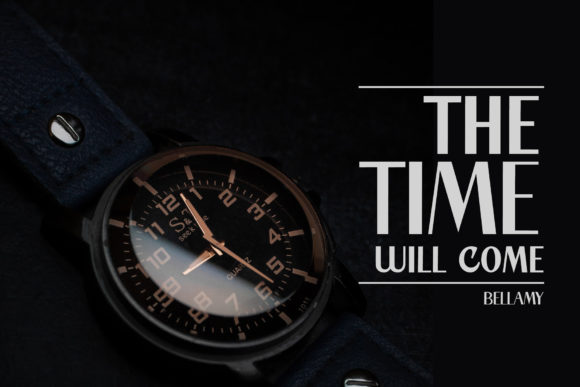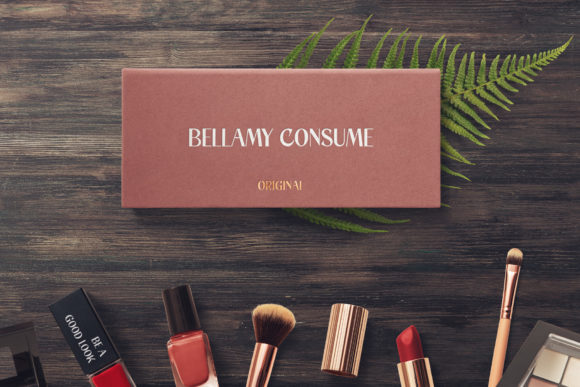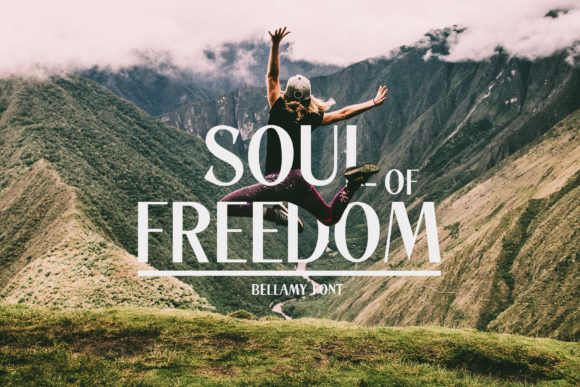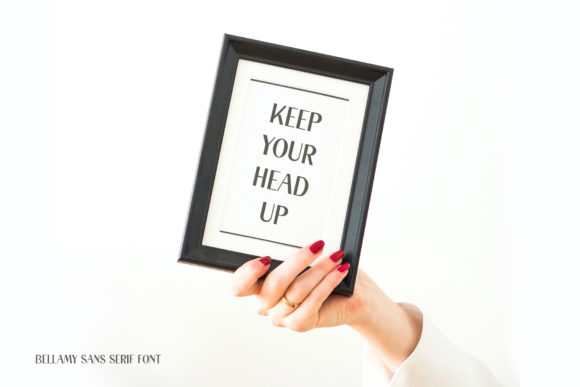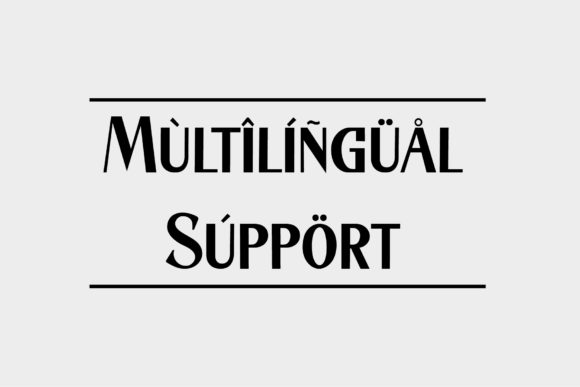
The Perfect Match for Your Next Design Project
Have you ever stared at a blank canvas, waiting for inspiration to strike? For many designers, this is a familiar feeling. You want a font that will bring your vision to life, something that exudes modernity and versatility. That’s where the Bellamy Font comes in – a bold and thick lettered sans serif font that’s about to become your new best friend.
Whether you’re working on a formal project or something a bit more casual, the Bellamy Font is the perfect match. Its modern aesthetic makes it incredibly versatile, allowing you to experiment with a wide range of designs. With the Bellamy Font, you’ll be able to convey confidence and sophistication in your work, making it a valuable addition to any designer’s toolkit.
Bellamy Font Key Features
- Font Size: Bellamy Font is available in 3 different font sizes: Regular (400), Medium (500), and Bold (700).
- Unique Characteristics: Bellamy Font features a unique blend of modern and vintage elements, making it perfect for various design applications.
- Font Style: Bellamy Font is a sans-serif font with a clean and elegant design, suitable for both body text and headings.
Bellamy Font Review
I recently had the chance to work with the Bellamy font, and I must say it’s a solid addition to any design library. ✨ Here are some of the things that work well:
- Unique character set: Bellamy boasts a distinctive character set that’s both elegant and quirky, making it perfect for creative projects.
- High legibility: The font is highly legible, even at smaller sizes, making it a great choice for body text or headlines.
- Good for digital use: Bellamy is designed specifically for digital use, so it looks great on screens and works well with various screen resolutions.
However, there are some limitations to keep in mind: ⚠️
- Limited language support: While Bellamy is great for English text, it may not be the best choice for languages that require more complex typography.
- Not ideal for small text: While the font is highly legible, it may not be the best choice for very small text sizes, where it can start to lose its charm.
- Not a good choice for formal documents: Bellamy’s unique character set may not be suitable for formal documents or corporate materials, where a more traditional font may be preferred.
Overall, I think Bellamy is a great addition to any design library, but it’s not a one-size-fits-all solution. With its unique character set and high legibility, it’s perfect for creative projects, but may not be the best choice for more formal or technical documents.
Getting the Most Out of Bellamy Font
For optimal results, use Bellamy Font in combination with a clean and minimalist design aesthetic. Experiment with different font sizes, colors, and styles to find the perfect balance for your project. Consider pairing Bellamy with other sans-serif fonts for a modern look.
Bellamy Font is ideal for use in modern branding, logos, and digital products. Its clean and sophisticated design makes it perfect for use in business presentations, marketing materials, and website typography.
Alternatives to Bellamy Font
Oswald is a sans-serif font designed by Vernon Adams. It’s a great alternative to Bellamy Font for headings and titles, as it has a similar geometric feel. Oswald is more condensed and has a slightly more modern look, making it perfect for contemporary designs. When to use: Headings, titles, and short paragraphs.
Comparison: Oswald is more condensed and has a more geometric feel, while Bellamy Font is more rounded and has a humanist touch. Oswald is also more versatile and can be used for a wider range of text sizes.
Lato is a sans-serif font designed by Łukasz Dziedzic. It’s a great alternative to Bellamy Font for body text, as it has a similar clean and modern feel. Lato is more legible and has a slightly more rounded look, making it perfect for long paragraphs and body text. When to use: Body text, paragraphs, and short quotes.